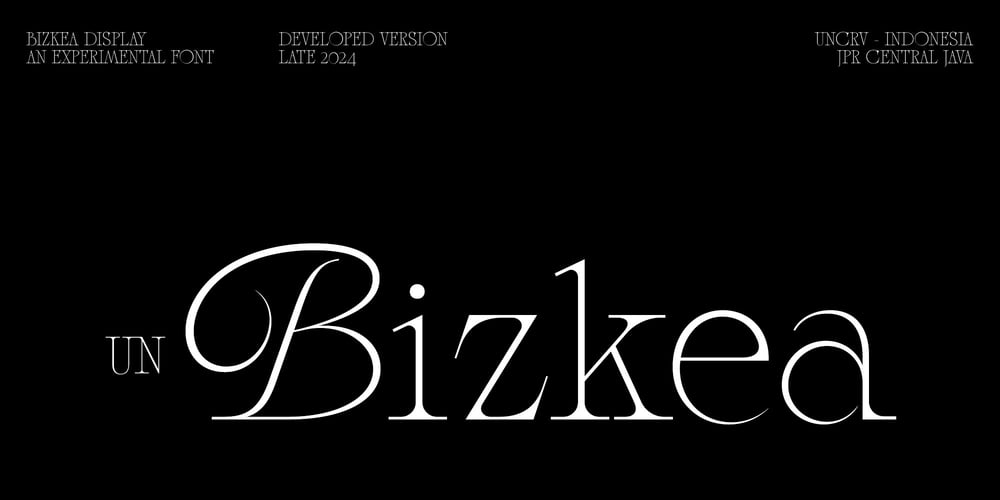
UN Bizkea
UN Bizkea font
UN Bizkea Font Family was designed by Ahmad Nur Alfian and published by Uncaving Nation. UN Bizkea contains 1 styles and family package options. Bizkea is a unique display font that seamlessly blends the classic elegance of Garalde fonts. By reinterpreting the artistic and visual richness of these styles towards a more modern and contemporary approach, the result is a timeless font with character and versatility.Bizkea stands out best in larger sizes, making a bold impact in headings and titles, yet remains versatile enough for various design contexts.